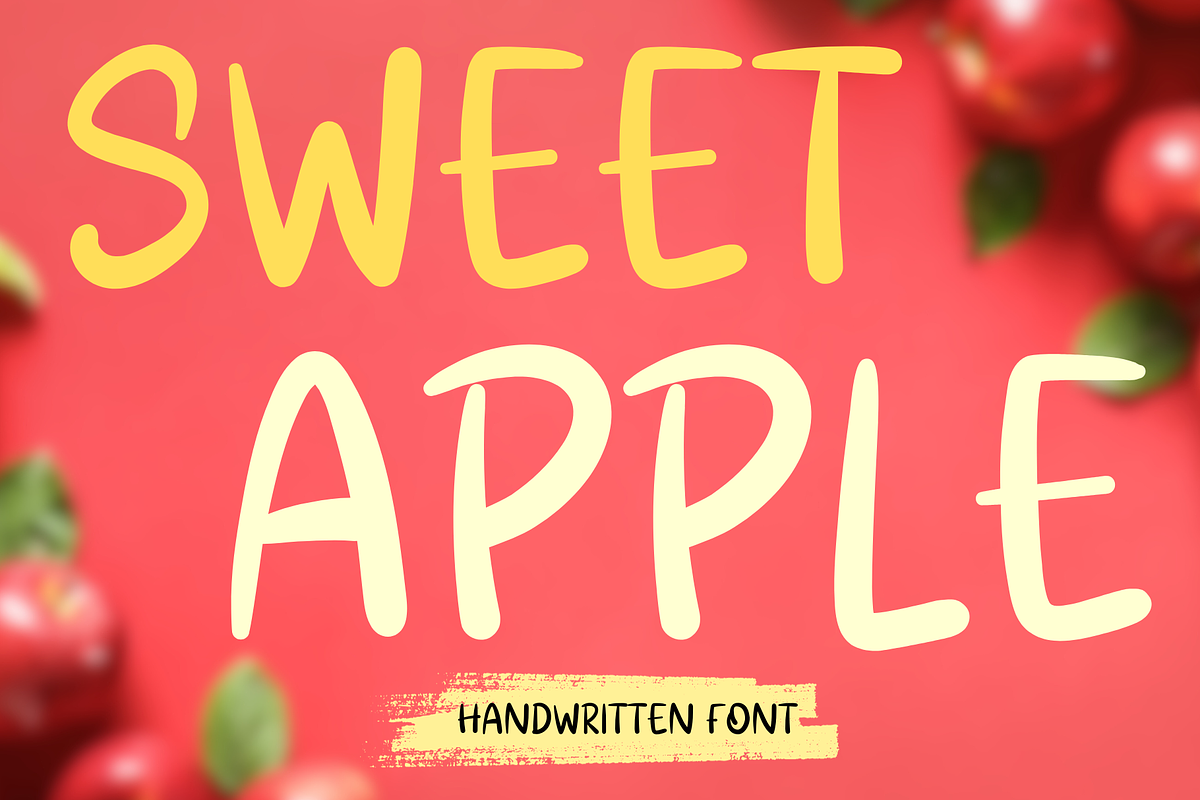
Please note, to use this font for commercial purposes, you must purchase the full version. Sweet Apple is a delightful and playful script font that brings a fun, whimsical touch to your designs. With its smooth, flowing curves and charming character, this font is perfect for creating logos, invitations, branding, and other creative projects. Whether you're designing for a children's brand, a sweet event, or a personalized greeting card, Sweet Apple adds a lighthearted and friendly feel to your work. Test it out and enjoy free download access for personal use. Experience the joyful style of Sweet Apple Font Free Download before purchasing the commercial license. Add a playful, charming touch to your designs with Sweet Apple.